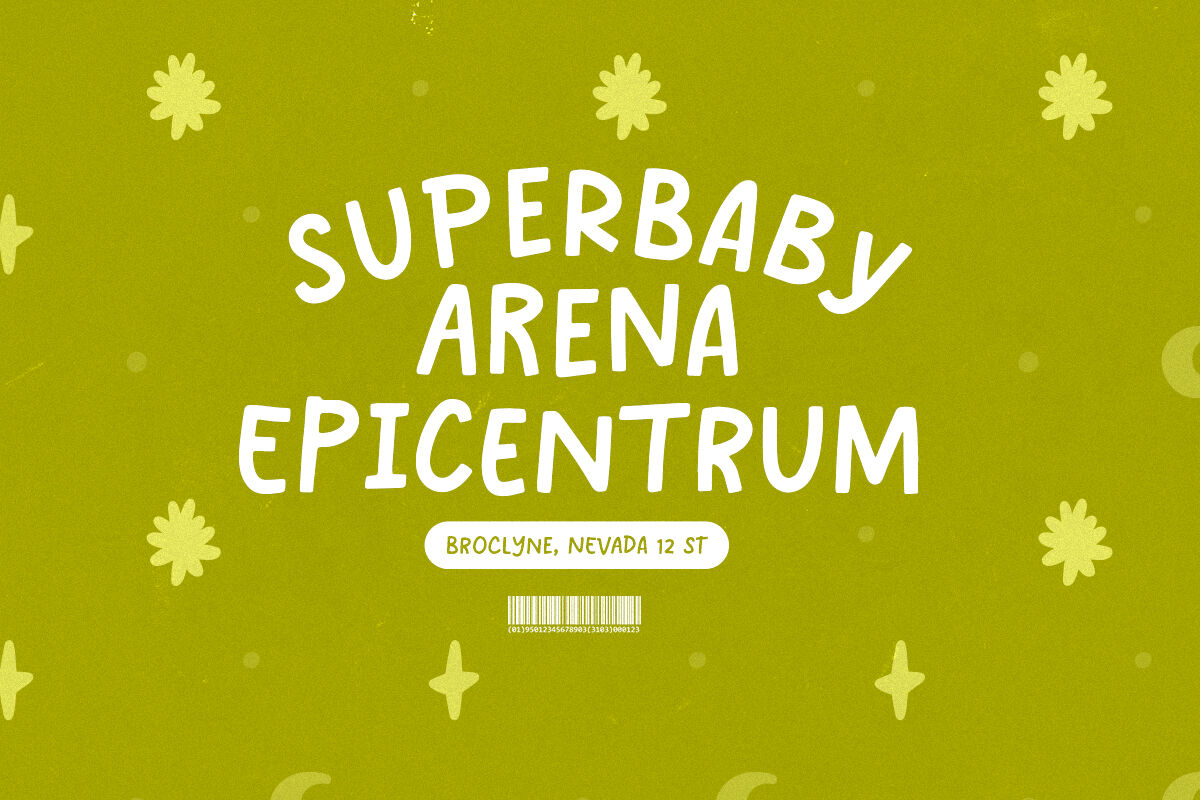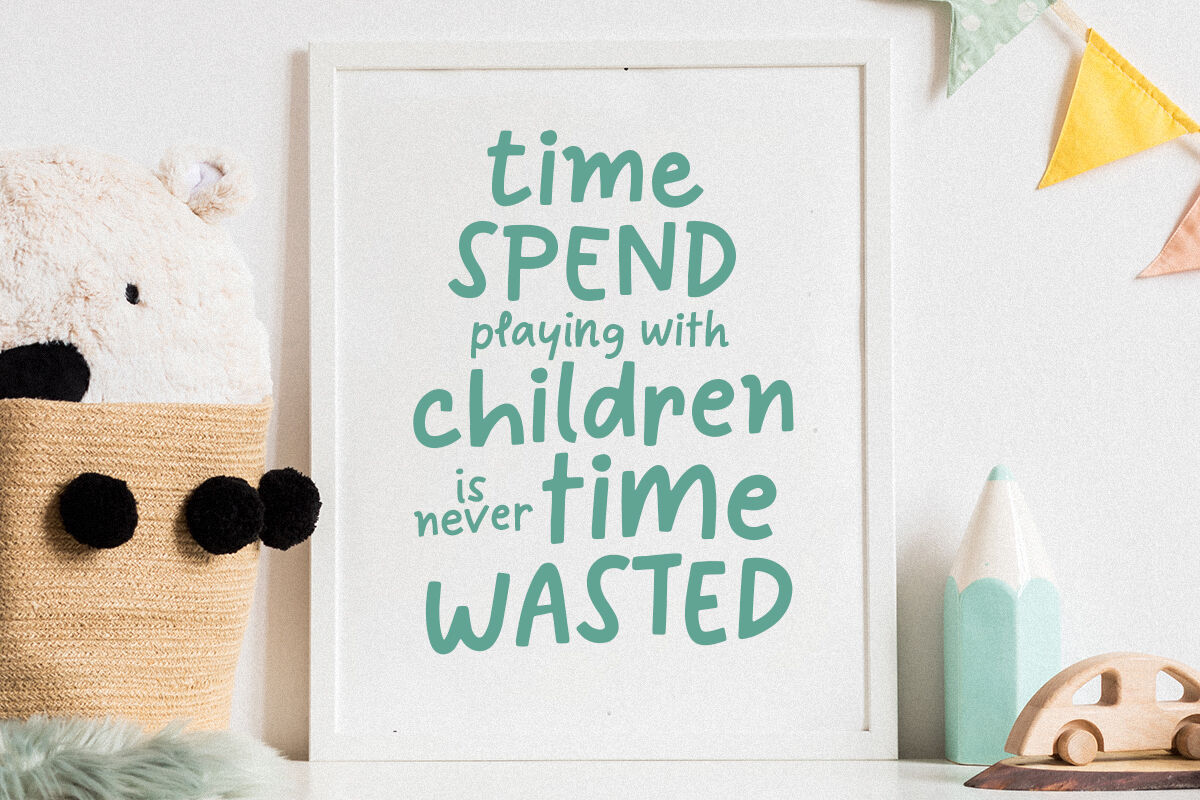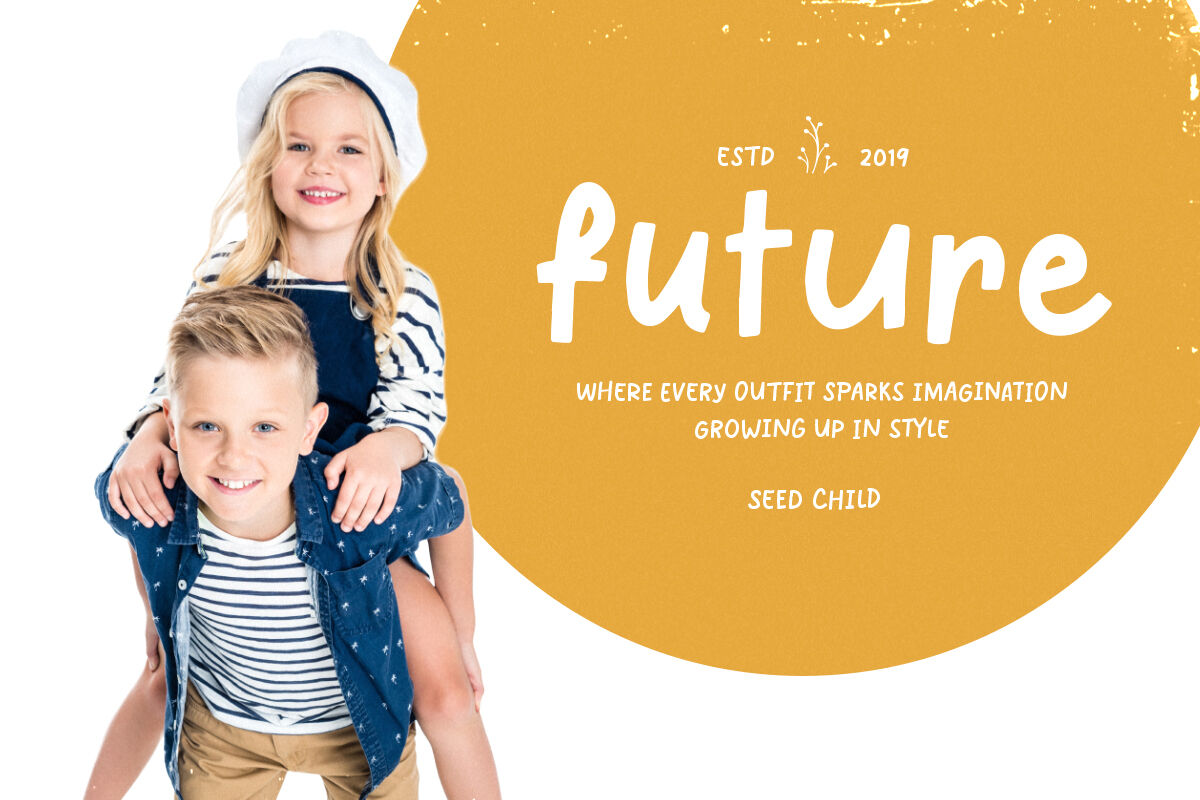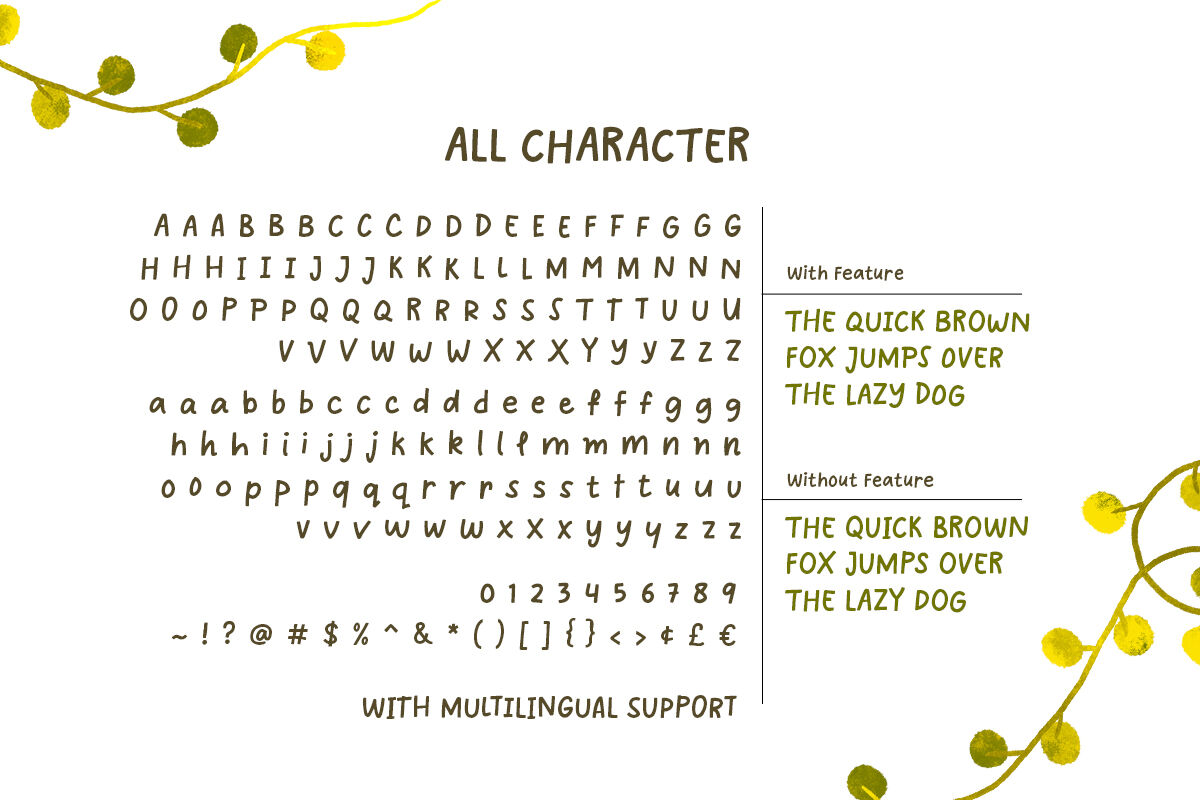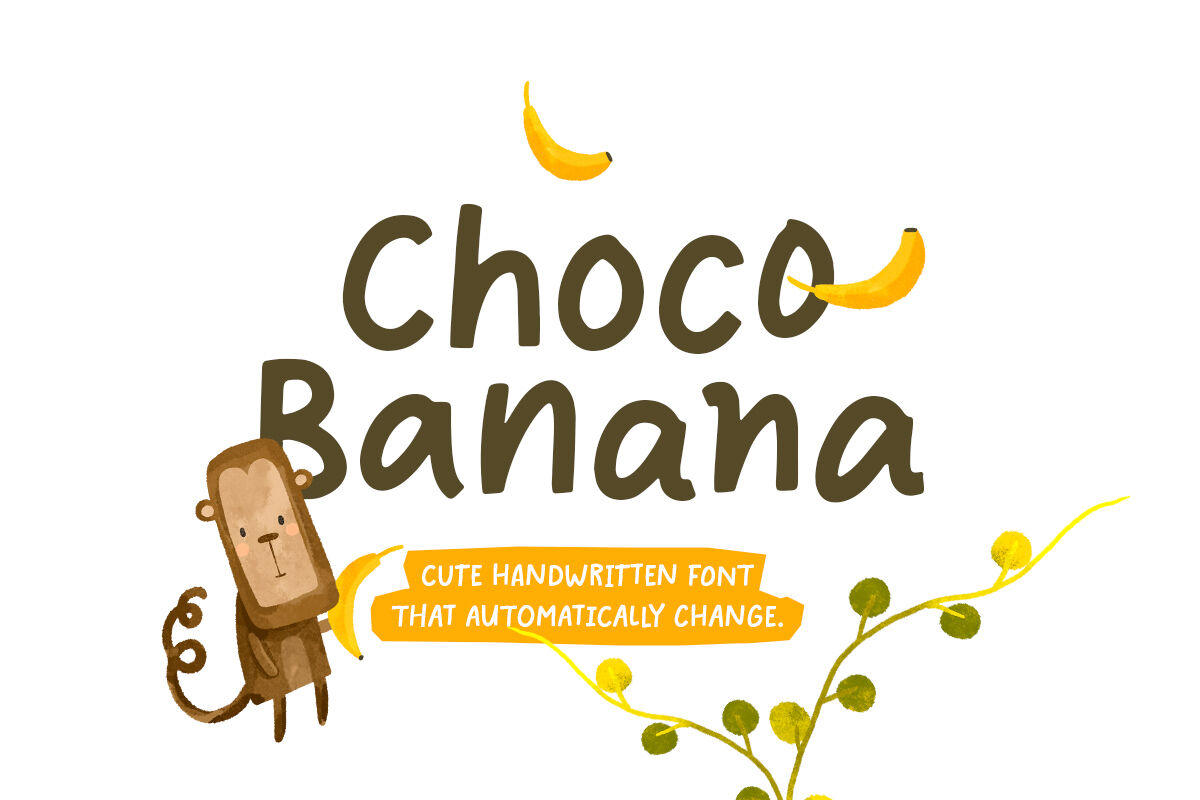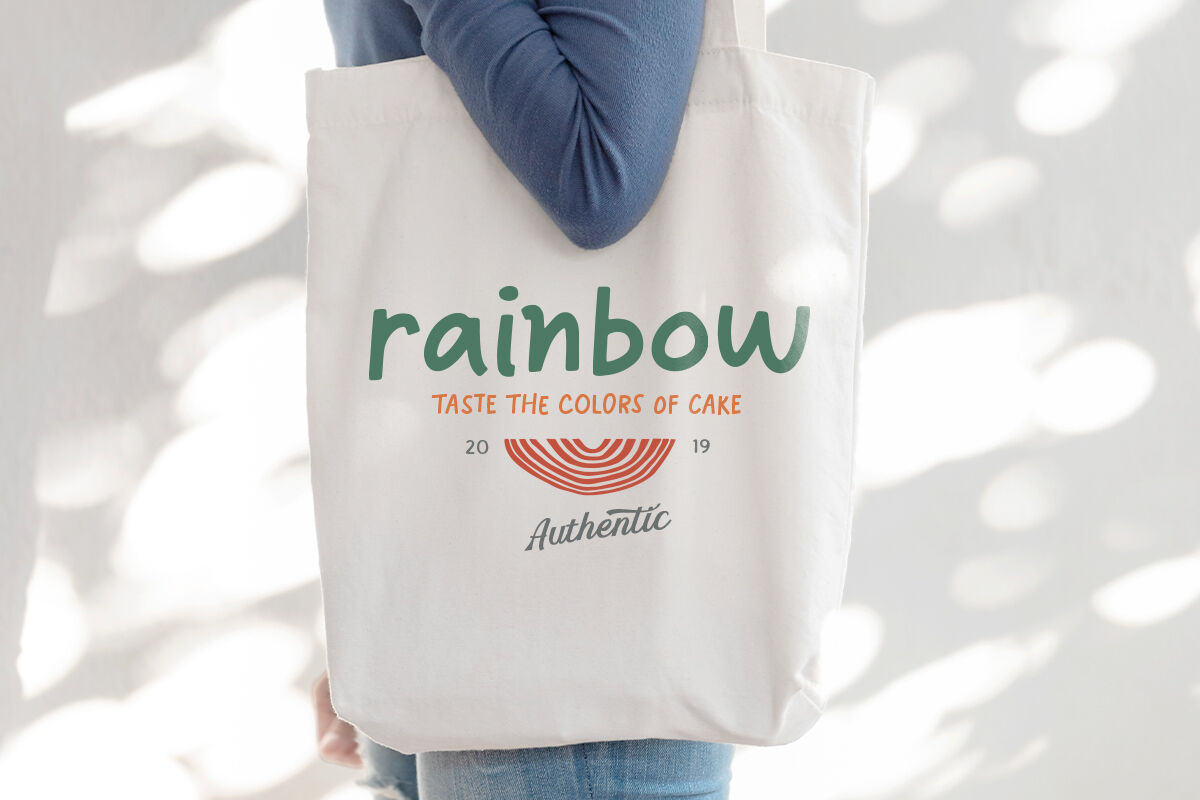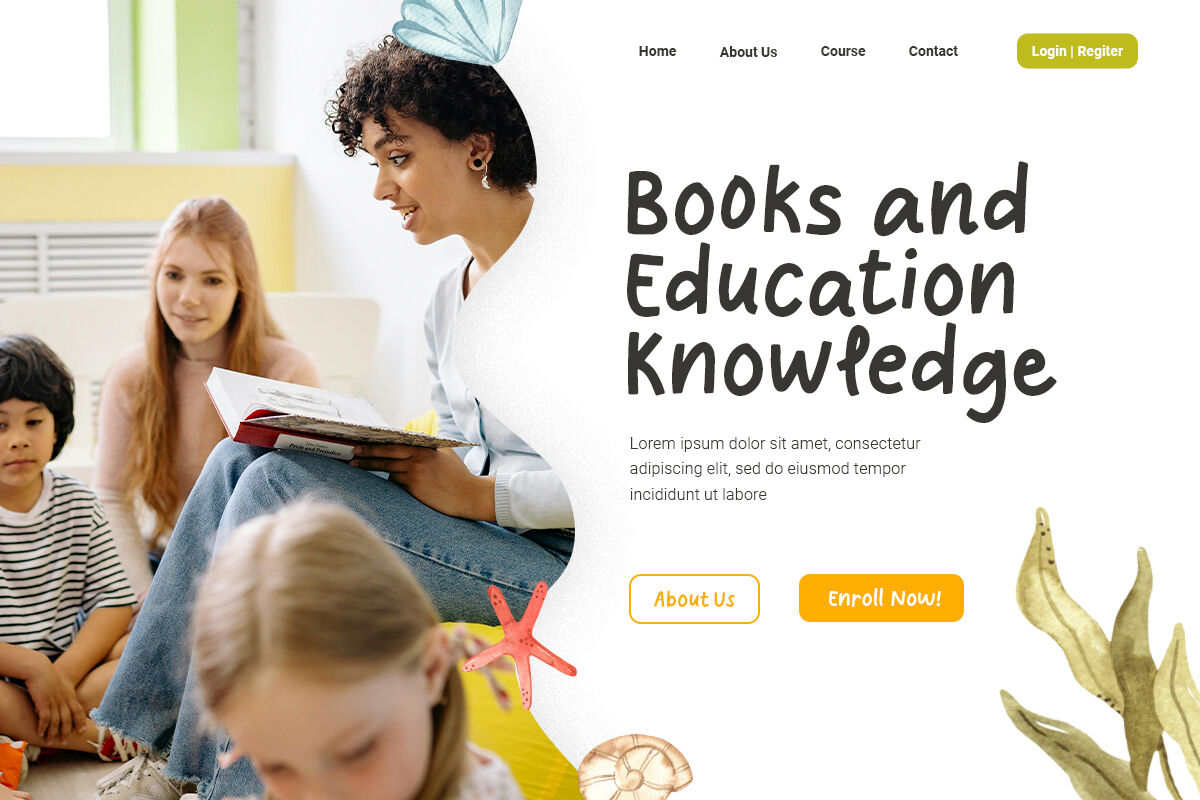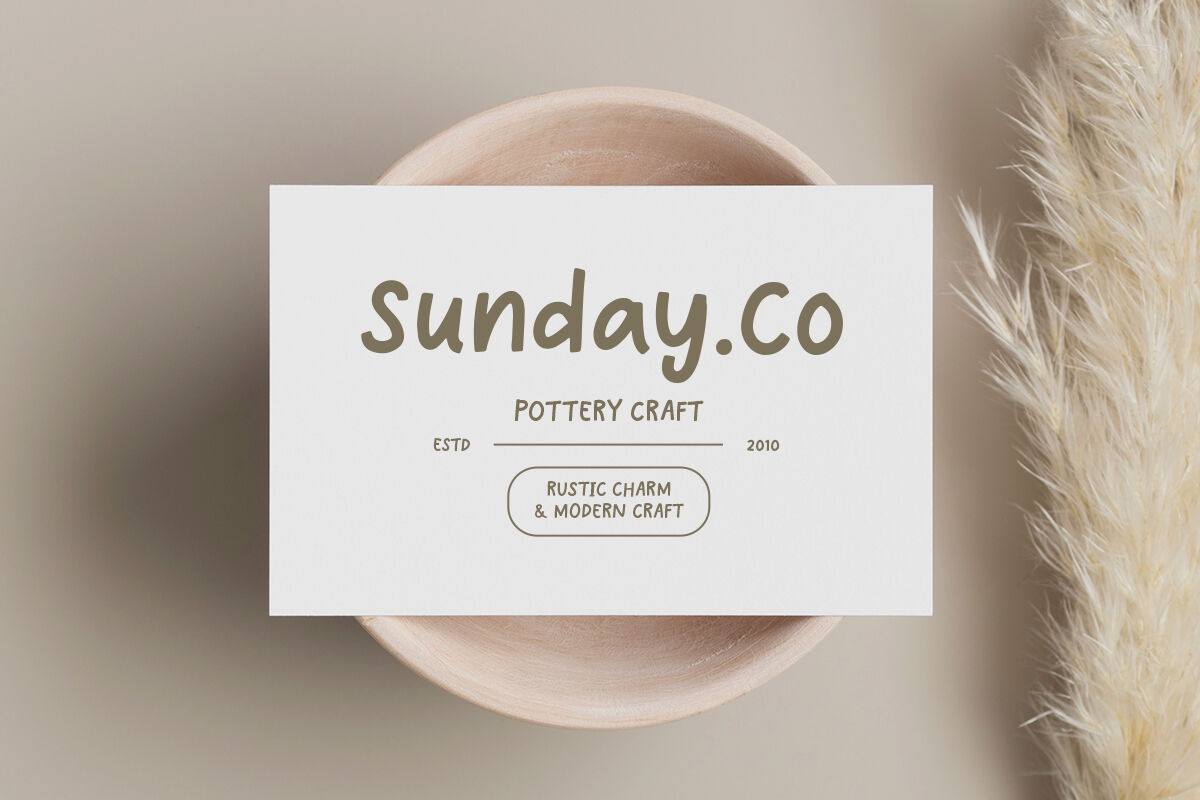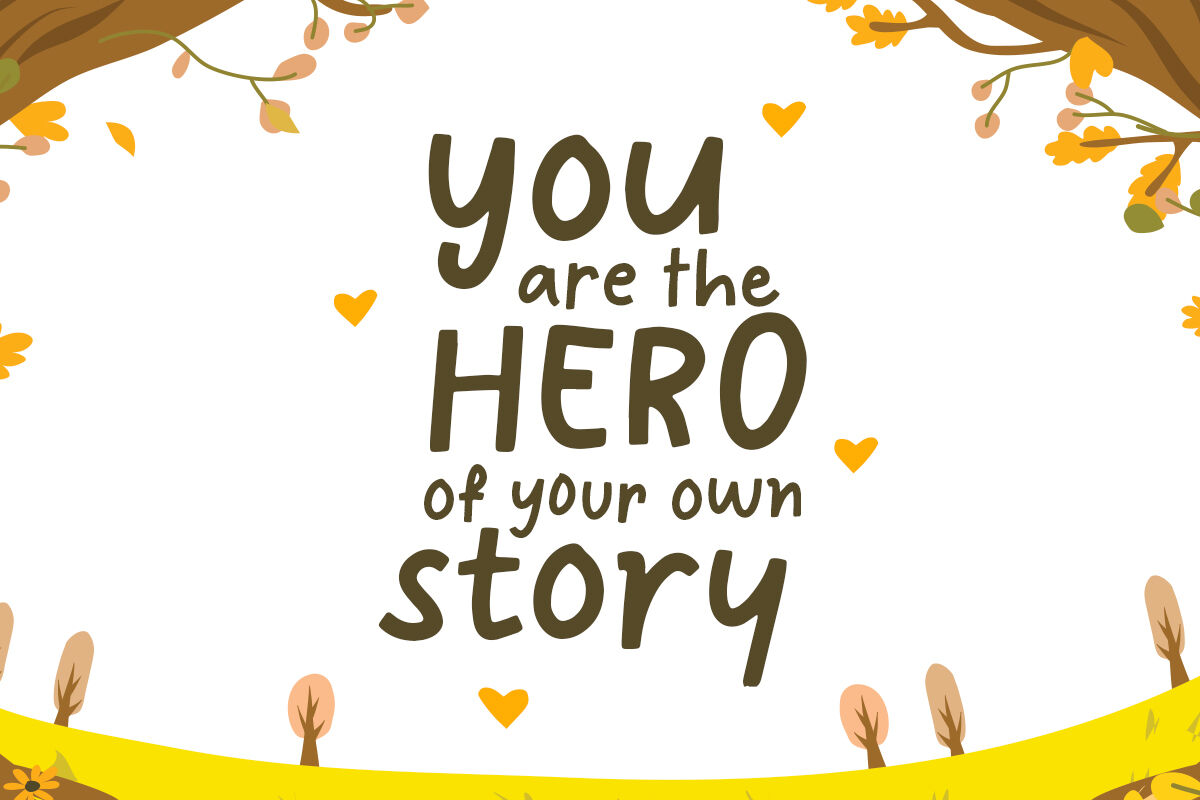
Choco Banana - Cute Handwritten Font
Choco Banana is a cute handwritten font with alternates that can change automatically. You can access the feature just for activated the Contextual Alternates in OpenType features in Adobe Photoshop or Illustrator. This will make your text or design looks more natural and manually handwritten. Additionally, this font supports multiple languages!